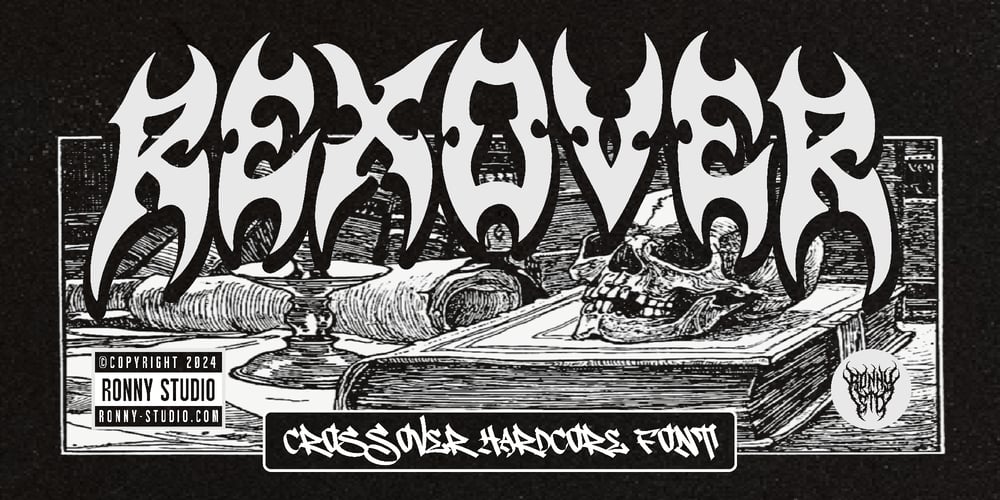
Rexover Font Family was designed by Rony Rizki Jaya and published by Ronny Studio. Rexover contains 1 styles and family package options. Rexover Font is a cool alternative for you to create Underground band logos or anything else easily. Using effects in the font will liven up the font and it will look cooler and fiercer. This font has a strong, aggressive and bold look, reflecting the aesthetics of the metal music genre itself. This font is very suitable for band logos, poster designs, t-shirt designs, jackets, hats, beanies, etc